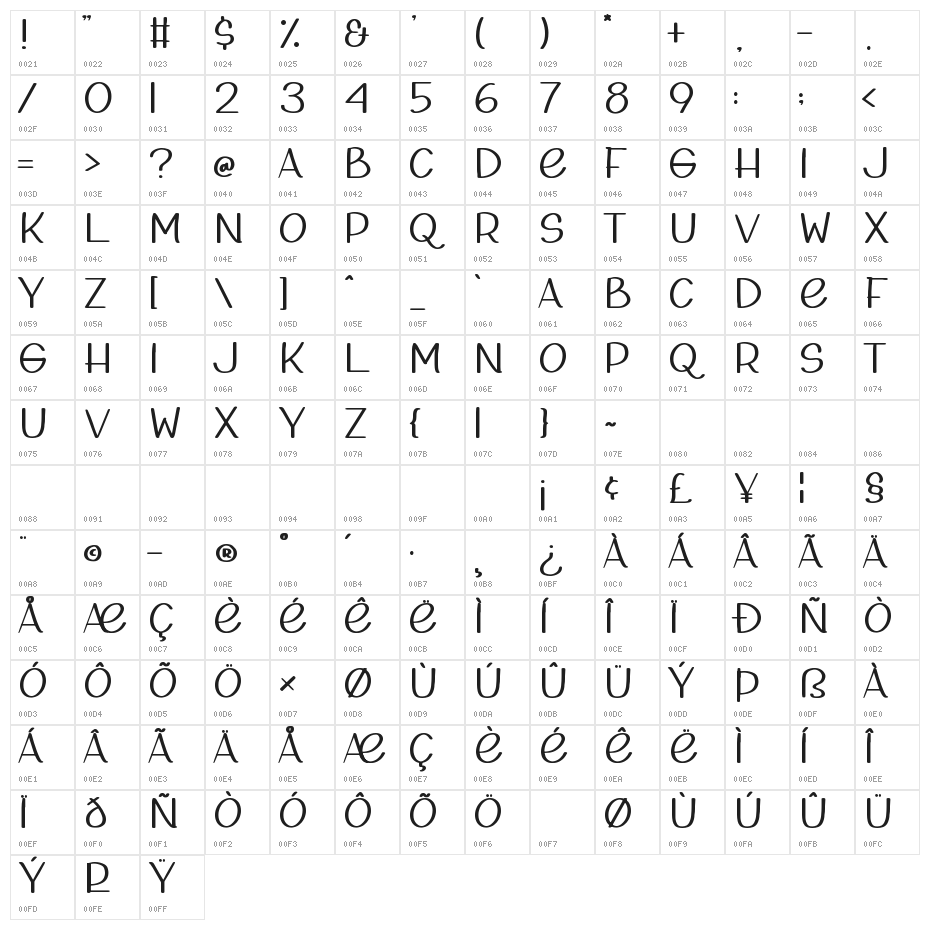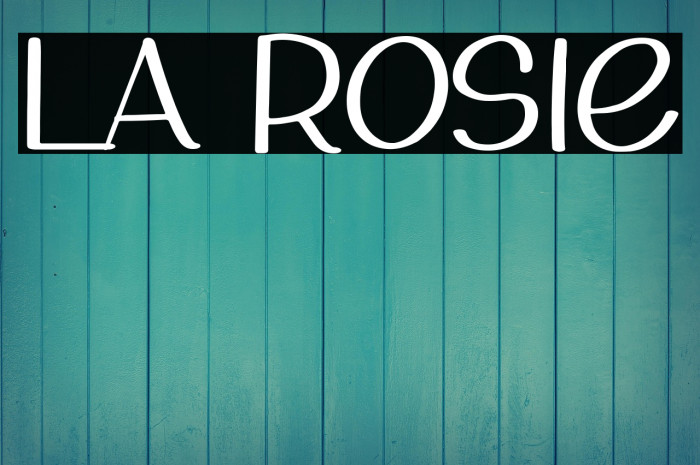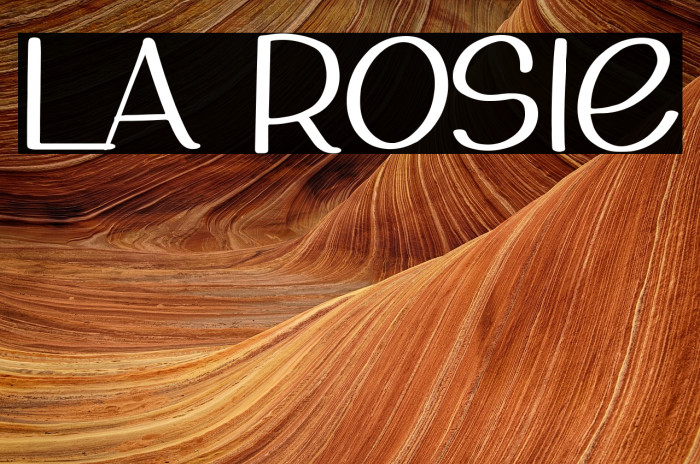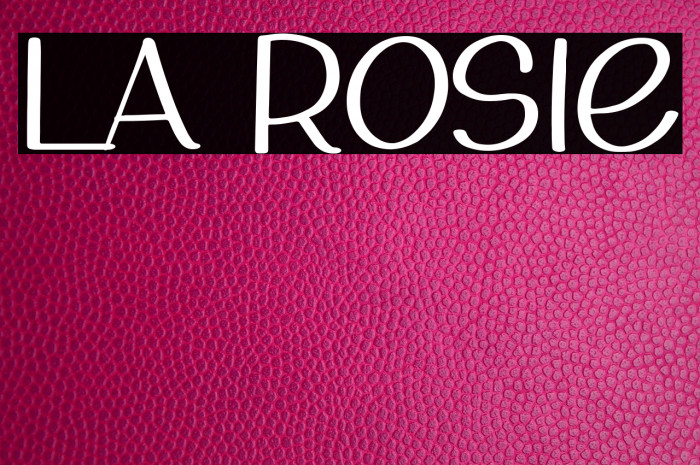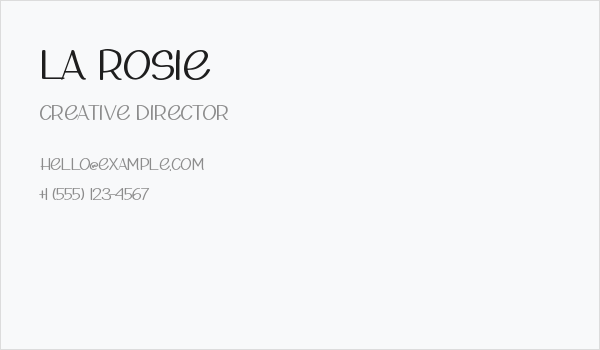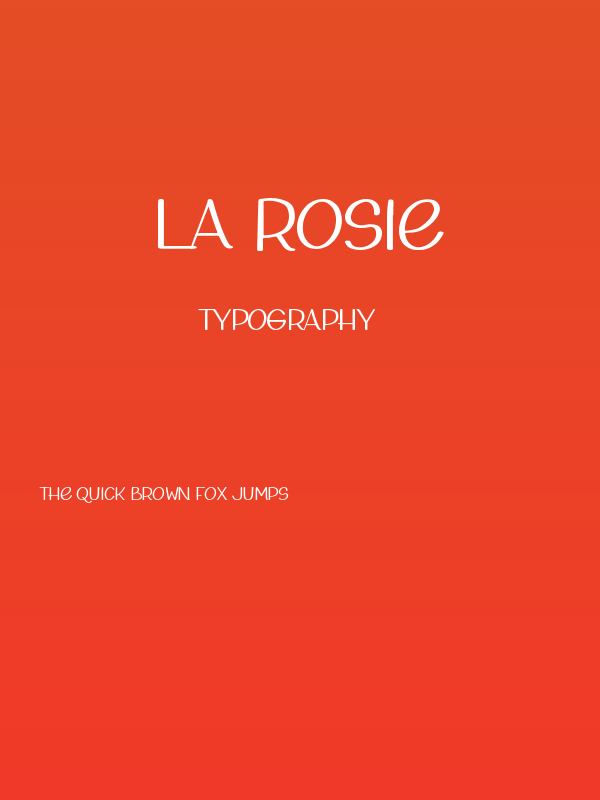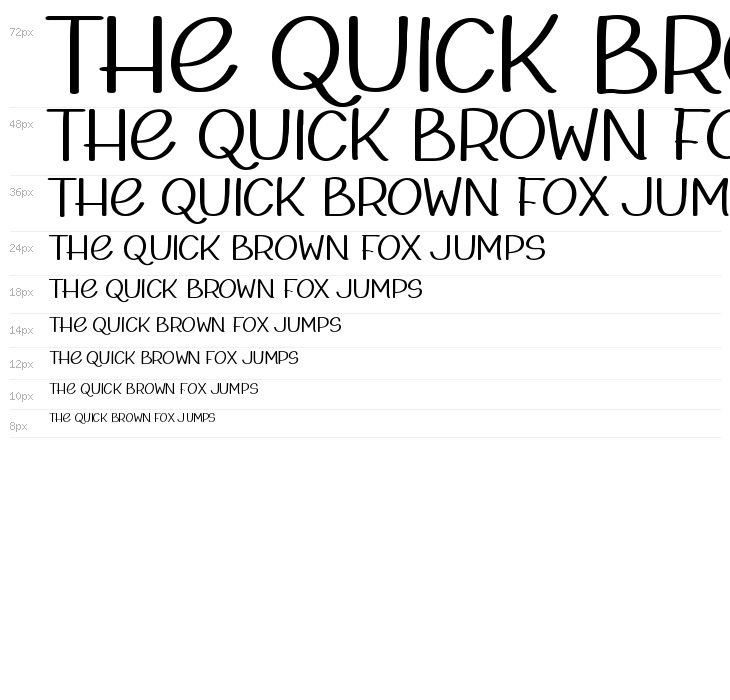
La Rosie Font
La Rosie Description
This font features a playful and whimsical style with a handwritten appearance. The characters are smooth and rounded, giving a friendly and approachable feel. The uppercase letters are slightly taller than the lowercase ones, maintaining a consistent flow throughout. The numbers and special characters are designed to match the overall aesthetic, ensuring a cohesive look. The strokes are consistent in width, providing a clean and modern touch. This font is ideal for projects that require a personal and informal tone.
Overall StylePlayful, Modern
Use CaseHeadlines, Logos, Invitations
Proposed ProjectsIdeal for greeting cards, children's books, playful branding, and casual invitations.